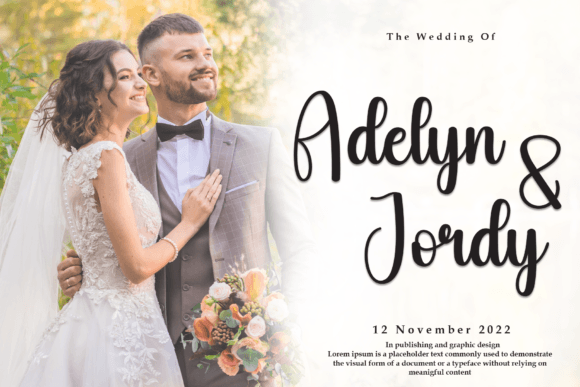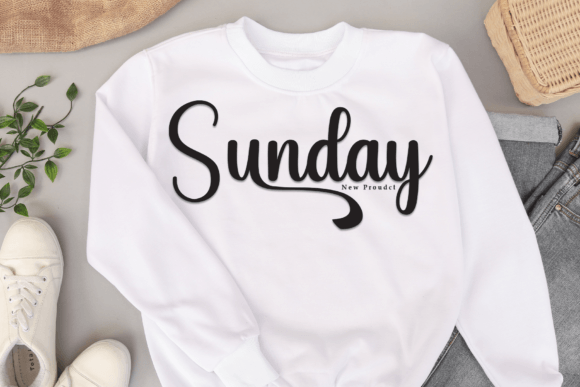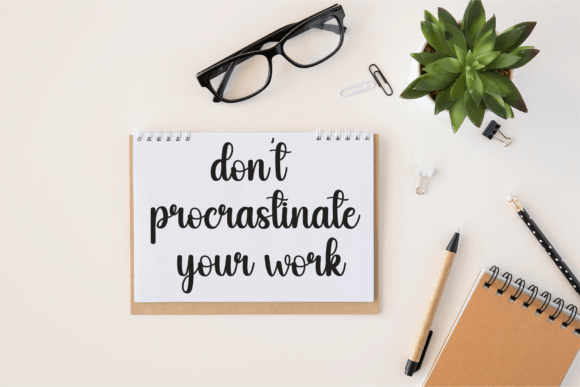
Introduction to Skinny Barbie Font
As a designer, there’s nothing quite like the rush of inspiration that hits when you stumble upon the perfect font. It’s like discovering a hidden treasure trove of creativity, and suddenly, your entire design project comes alive. For many of us, that moment of epiphany often involves a high-quality font that elevates our work from mere mortal to masterpiece.
One such font that has captured the hearts of designers everywhere is the Skinny Barbie Font. This lovely and timeless handwritten font is a design resource that’s hard to resist, with every letter boasting a unique and beautiful touch that’s sure to make your design stand out. Whether you’re working on a creative project that requires a free download or a commercial venture that demands a premium feel, Skinny Barbie Font is the perfect choice.
Key Features of Skinny Barbie Font
- High-quality design resource suitable for creative projects, including graphic design, digital art, and more.
- Features a transparent background, allowing for seamless integration into various design elements and compositions.
- Unique and stylish design, perfect for adding a touch of elegance and sophistication to any creative project.
Honest Review: Skinny Barbie Font
I recently stumbled upon the Skinny Barbie Font while searching for a design resource for a creative project. I was initially drawn to its playful and modern aesthetic, making it perfect for a variety of designs. The font is available for a free download, which is always a plus.
Here are some things that work well about the Skinny Barbie Font:
- ✨ The font’s high quality is evident in its crisp and clean design.
- ✨ The transparent background makes it easy to use in various design contexts.
- ✨ The font’s modern aesthetic makes it suitable for a wide range of creative projects.
However, I did encounter some limitations with the Skinny Barbie Font:
- ⚠️ The font may not be ideal for more formal or traditional designs due to its playful nature.
- ⚠️ Some users may find the font’s size limitations restrictive for certain applications.
Overall, I’m impressed with the Skinny Barbie Font’s design and versatility. It’s a great addition to any designer’s toolbox, especially for those working on creative projects that require a modern and playful touch.
Tips for Getting the Most Out of the Font
To get the most out of the Skinny Barbie Font, consider the following tips:
- Use the font with a transparent background to create a clean and minimalist design.
- Experiment with different font sizes and styles to create visual interest.
- Combine the font with other design elements, such as images and graphics, to create a unique and eye-catching design.
The Skinny Barbie Font is perfect for a variety of creative projects, including:
- Graphic design projects, such as logos and business cards.
- Digital marketing materials, such as social media graphics and email newsletters.
- Print design projects, such as posters and brochures.